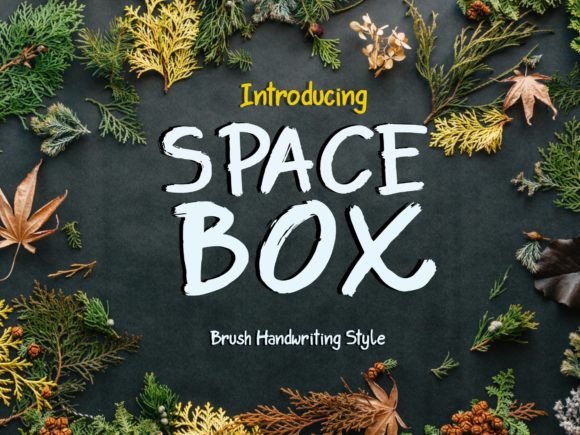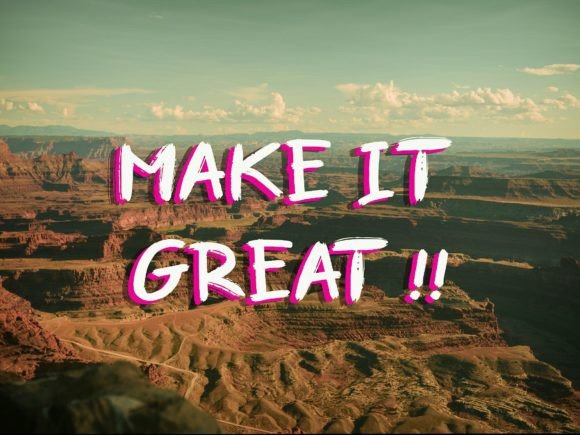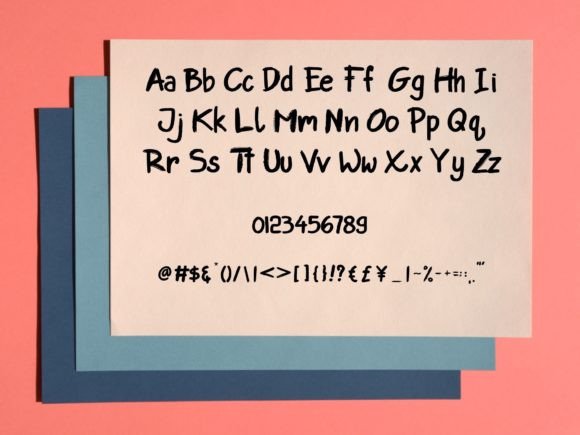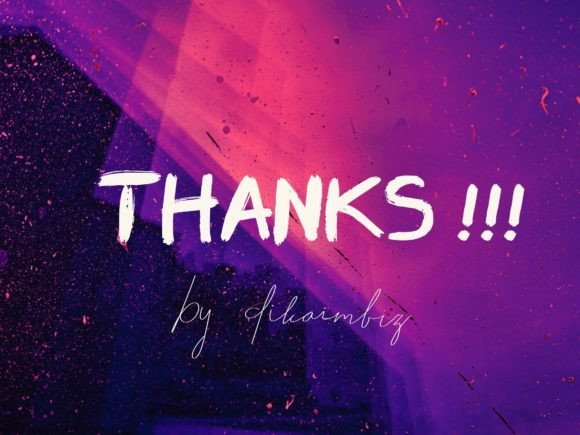
Space Box Font
About Space Box Font
**Explore Creativity with Space Box: Where Art Meets Typography**
Dive into the creative universe of **Space Box**, a font that effortlessly combines cool, artsy vibes with an innovative approach to script handwriting. With its fresh and well-balanced characters, crafted in a brush style, **Space Box** breathes life into your designs, transforming them into artistic masterpieces. Let’s embark on a journey where typography meets creativity and discover the endless possibilities this font has to offer.
**Artistry in Every Stroke:**
**Space Box** isn’t just a font; it’s a canvas where artistry comes to life. Each stroke is meticulously crafted to exude an artsy vibe, adding depth and character to your designs. The brush-style characters create a sense of movement and spontaneity, making every letter a work of art. Whether you’re designing posters, logos, or social media graphics, **Space Box** injects an artistic flair that captivates viewers and elevates your creative endeavors.
**Cool and Contemporary:**
Coolness meets contemporary design in **Space Box**. Its stylish characters exude a sense of effortless cool, making it the perfect choice for projects that demand a modern touch. Whether you’re working on urban-themed designs, trendy branding materials, or fashion-forward advertising, this font effortlessly embodies the spirit of contemporary aesthetics, making your creations visually appealing and on-trend.
**Versatility Beyond Limits:**
One of the standout features of **Space Box** is its versatility. This font effortlessly adapts to a wide range of design concepts, from edgy and urban to playful and vibrant. Its ability to complement various styles and themes gives you the freedom to explore diverse creative avenues. Whether you’re experimenting with color palettes, textures, or layout designs, **Space Box** seamlessly integrates into your projects, enhancing their visual appeal and making them truly unique.
**Unleash Your Imagination:**
**Space Box** isn’t just a font; it’s a catalyst for creativity. Its artsy and contemporary elements encourage you to push the boundaries of design. Let your imagination run wild as you experiment with different typographic treatments, layering techniques, and color schemes. Whether you’re a seasoned designer or an aspiring creative, **Space Box** provides the perfect canvas for expressing your artistic vision and unleashing your creativity.
**Elevate Your Designs with Space Box:**
Ready to take your designs to the next level? **Space Box** is your passport to a world where typography meets artistry. Whether you’re working on branding projects, advertising campaigns, or personal creative endeavors, this font empowers you to infuse your designs with a cool, artsy vibe. Explore the endless possibilities, experiment fearlessly, and let **Space Box** be the muse that sparks your creative genius.